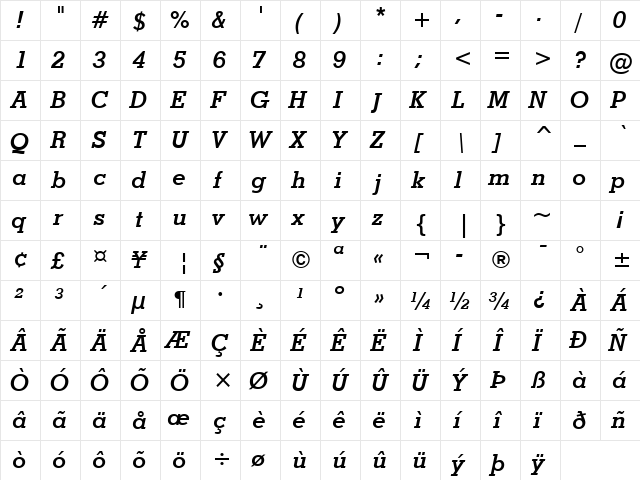
Stymie Bold Italic
Design Context for Stymie Typeface
Stymie is a composed and adaptable typeface that performs quietly and consistently across a wide range of design contexts. Its italic angle brings a sense of urgency and motion to the letterforms. Its bold stroke weight gives it real presence on the page.
Pro Tip: Use Stymie for emphasis, pull quotes, and subheadings where its slanted energy can add rhythm to the layout.